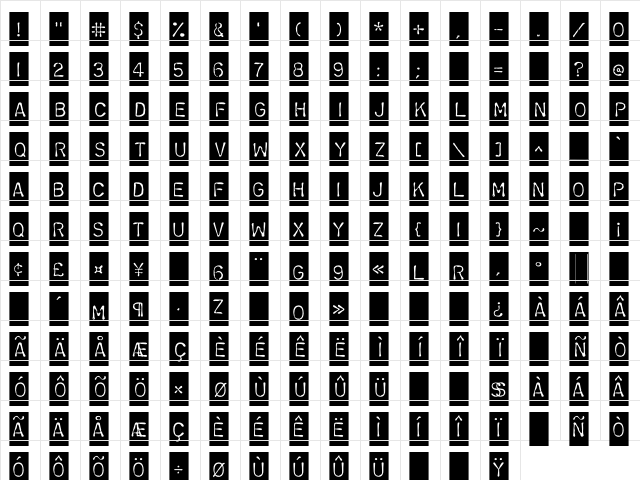
ChromosomeReversed Light
Design Context for ChromosomeReversed Typeface
ChromosomeReversed offers clean, dependable letterforms without strong stylistic allegiance, making it a practical choice for designers who need flexibility. Its slender proportions lend an understated elegance to any composition.